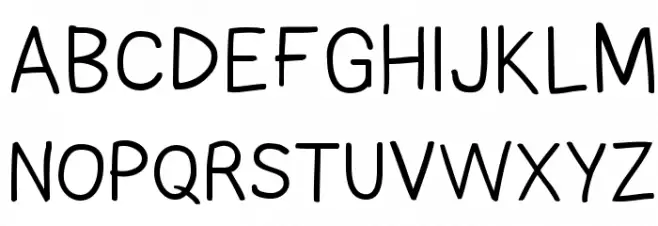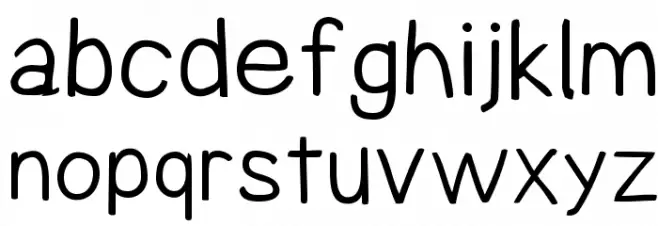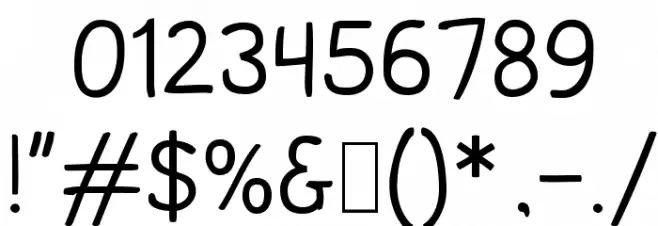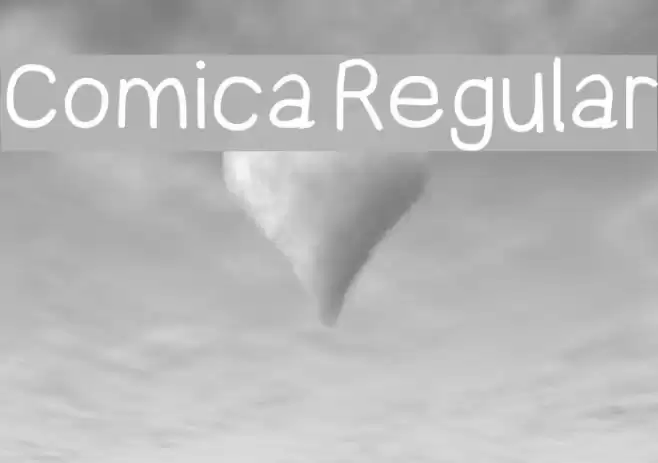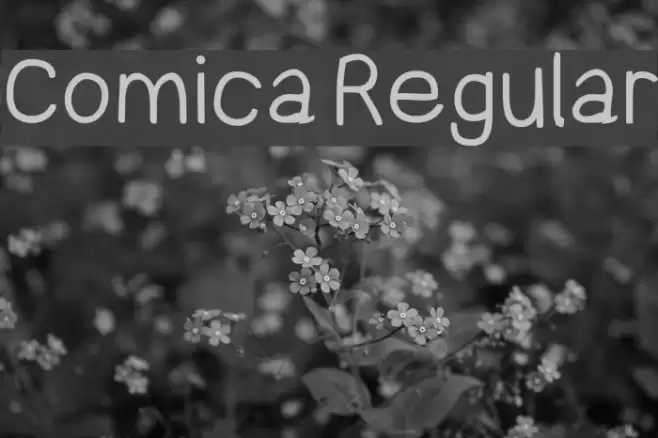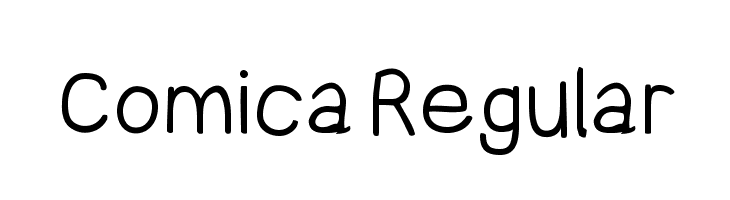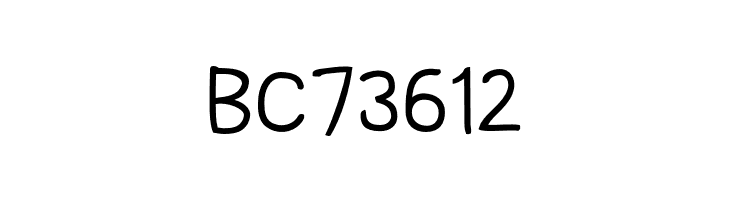
Comica Regular
This playful and informal typeface features rounded edges and a hand-drawn aesthetic, giving it a friendly and approachable appearance. The characters are evenly spaced with a consistent stroke width, making it highly legible. The uppercase and lowercase letters maintain a uniform height, contributing to a balanced look. The numbers and special characters are designed with the same casual style, ensuring cohesion across all elements. This font is ideal for projects that require a touch of whimsy and creativity, such as comic books, children's books, or playful branding.
A playful, hand-drawn typeface with rounded edges and a casual style.
- Proposed Projects: Comic books, children's books, playful branding, casual invitations.
- Overall Style: Casual, Playful
- Use Case: Headlines, Logos, Informal Text